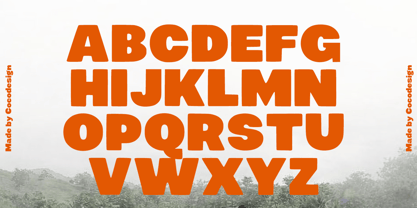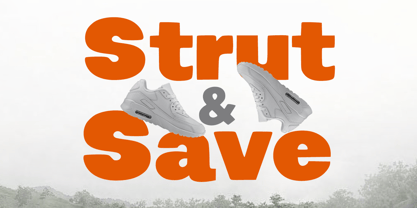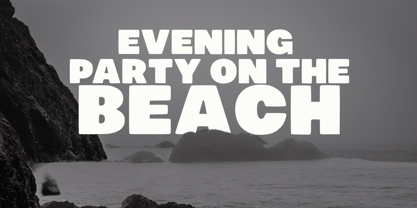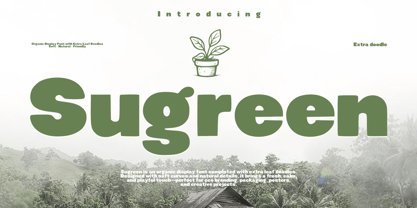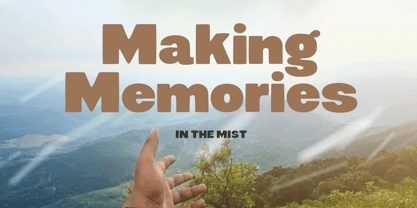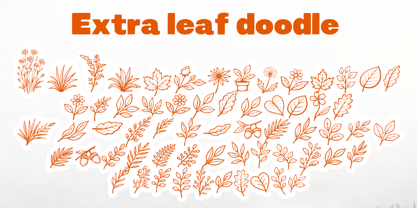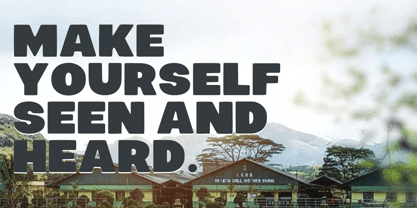
Sugreen
The Sugreen Font Family was designed by Muhammad Zaini and published by Cocodesign. Sugreen contains 4 styles and family package options. More about this family
Sugreen – Organic Display Font Sugreen is an organic display font inspired by nature, characterized by soft curves and balanced shapes. Enhanced with charming leaf doodles, this font exudes a fresh, calm, and friendly visual appeal, making it perfect for various creative projects. Designed to shine in headlines and decorative typography, Sugreen is ideal for eco branding, packaging, posters, logos, labels, social media graphics, and creative storytelling, all infused with a natural touch. Its unique style and versatility make it a standout choice for any design that seeks to connect with nature and promote sustainability.